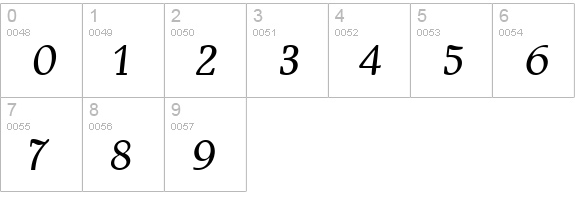
Devroye Font Details
Devroye font is a versatile and elegant typeface that exudes sophistication and modernity. With its clean lines and stylish curves, this font is perfect for a wide range of design projects, from branding to editorial design. The Devroye font is available in a variety of weights and styles, making it incredibly versatile for any design need. What makes Devroye font even more appealing is that it is completely free to download. You can easily access and use this stunning font in your projects without any cost. Simply head over to FontsMarket.com to download Devroye font and elevate your designs with its timeless and refined aesthetic.